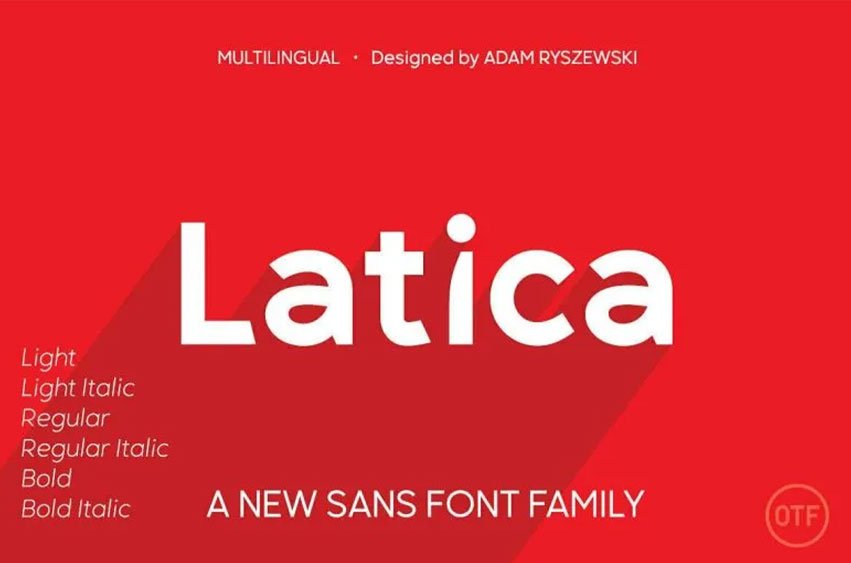
Latica Font is an original, brand new geometric sans serif Font family designed to be visually appealing with lower and upper capital letters that are spaced out and masterfully crafted to ensure maximum accessibility.
This typeface can be used in a variety of applications websites, magazines posters bran-dings posters etc and supports multilingualism.